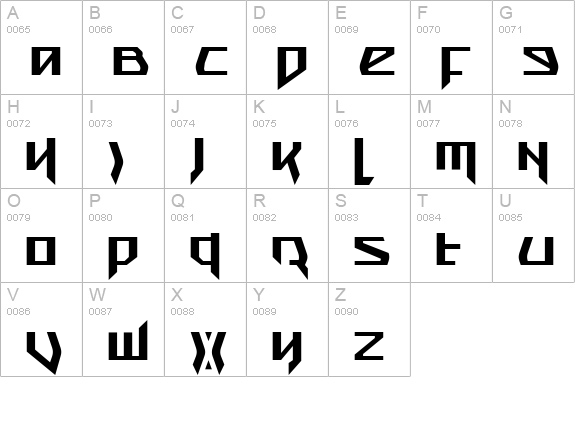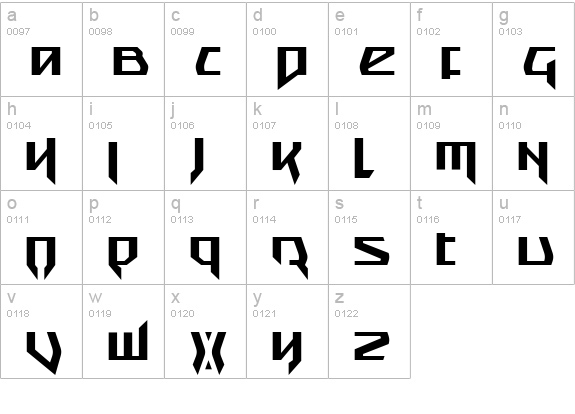
Snubfighter Condensed is a distinctive, condensed-width variant in the Snubfighter typeface family \xE2\x80\x94 well suited to design and typography projects.
Snubfighter Condensed is a modern and sleek sans-serif font that exudes a sense of sophistication and style. With its clean lines and sharp angles, this font is perfect for creating eye-catching headlines, branding materials, and digital designs. The condensed design gives it a bold and impactful presence, making it ideal for projects that require a strong visual impact. What sets Snubfighter Condensed apart is not just its striking aesthetic, but also the fact that it is available for free download at FontsMarket.com. This means that you can easily access and use this stylish font in your projects without any cost involved. Whether you're a designer looking to add a touch of elegance to your work or a business owner wanting to elevate your brand's visual identity, Snubfighter Condensed is a versatile and reliable choice that won't break the bank. Download it now and see how it can enhance your creative endeavors!